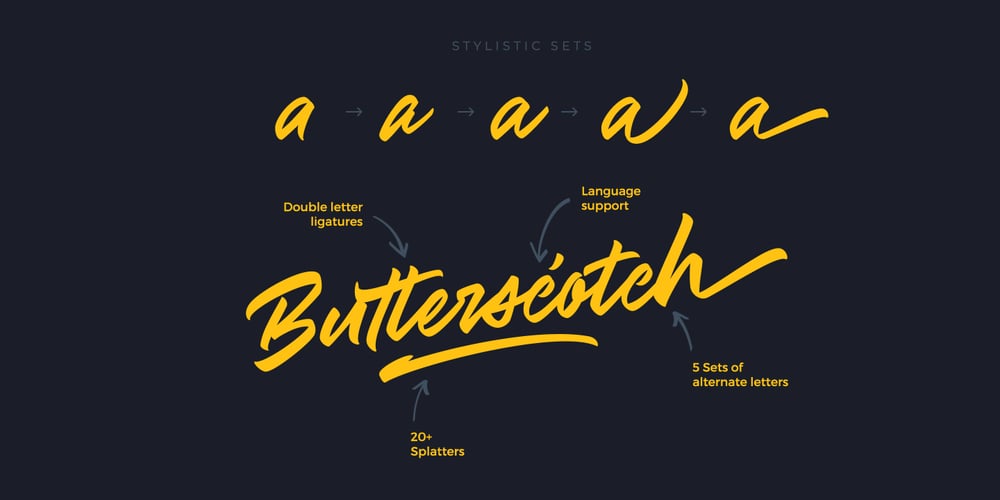
Tyrium Font Family was designed by Anton Didenko and published by Kavoon. Tyrium contains 2 styles and family package options. Tyrium is the font pack. The Normal font combines with the alternate character font to make each word unique. Then add the Splatters font as your tagline and — the ideal logo! What’s included: – .TTF and .OTF files – Opentype features. – Splatters combines perfectly with Tyrium to create cool typography or logo design. – A range of multilingual support.